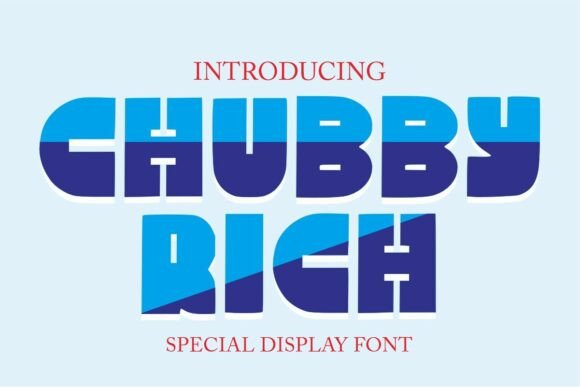
Introducing Chubby Rich Font: The Quirky Typeface that Embodies the Joy of Being a Crazy Rich Person
Are you tired of using the same old boring fonts in your designs? Do you want to add a touch of whimsy and fun to your projects? Look no further than the Chubby Rich Font, a delightful typeface that captures the essence of being a carefree, crazy rich person. This charming font is perfect for crafts, digital design, presentations, cartoons, and any other creative endeavor where you want to convey a sense of happiness and playfulness.
What is Chubby Rich Font?
Chubby Rich Font is a unique, chubby font that exudes joy and opulence. Its rounded, plump letters are designed to evoke the feeling of being surrounded by luxury and extravagance. The font’s quirky personality shines through in its bold, curved lines and endearing imperfections, making it an instant favorite among designers and crafty enthusiasts alike.
The Many Uses of Chubby Rich Font
One of the best things about Chubby Rich Font is its versatility. This font can be used in a wide range of creative projects, from:
- Crafts: Add a personal touch to your handmade cards, gift tags, and scrapbook pages with Chubby Rich Font.
- Digital design: Use the font in your social media graphics, blog posts, and website headers to inject a dose of fun and personality.
- Presentations: Make your presentations stand out with Chubby Rich Font’s playful, attention-grabbing style.
- Cartoons and comics: Bring your characters to life with this delightful font, perfect for speech bubbles, captions, and titles.
Why You’ll Love Using Chubby Rich Font
So, what makes Chubby Rich Font so special? Here are just a few benefits of using this delightful typeface:
- Instant recognition: Chubby Rich Font’s unique design ensures that your projects will stand out from the crowd and grab attention.
- Emotional connection: The font’s happy, carefree personality helps create an emotional connection with your audience, making your message more relatable and memorable.
- Versatility: Whether you’re designing for print or digital, Chubby Rich Font adapts seamlessly to different mediums and applications.
Design Tips for Using Chubby Rich Font
To get the most out of Chubby Rich Font, here are some design tips to keep in mind:
- Pair with contrasting fonts: Combine Chubby Rich Font with simpler fonts to create visual interest and hierarchy.
- Experiment with colors: Try out different color schemes to match your brand or project’s tone and style.
- Play with sizes: Use varying font sizes to add emphasis and create a sense of movement.
- Don’t be afraid to get creative: Chubby Rich Font is designed to be fun and playful, so don’t be afraid to experiment and try new things!
In conclusion, Chubby Rich Font is a delightful typeface that embodies the joy and playfulness of being a crazy rich person. With its versatile design, emotional appeal, and ease of use, this font is sure to become your go-to choice for a wide range of creative projects. So why wait? Download Chubby Rich Font today and start adding a touch of whimsy and fun to your designs!